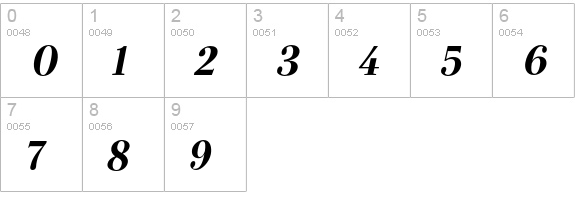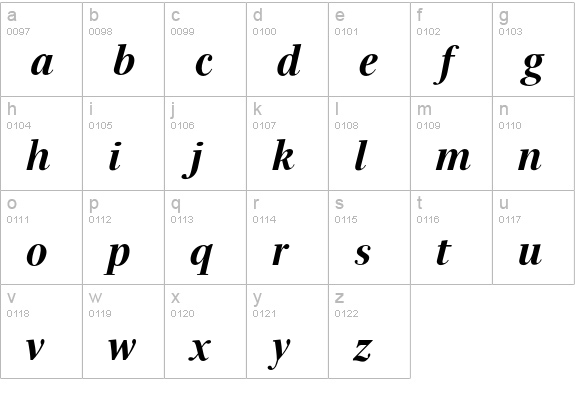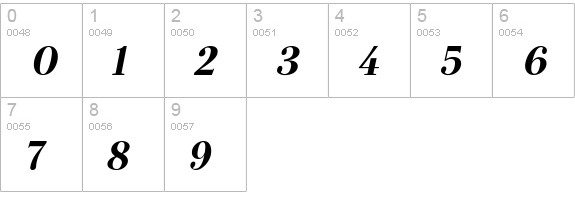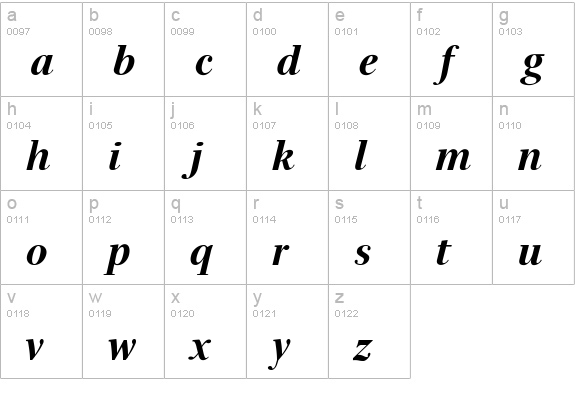
Serif72 Beta Black Italic Font Details
Serif72 Beta Black Italic is a maximum-weight, dramatic, italic variant in the Serif72 typeface family \xE2\x80\x94 well suited to maximum-impact headlines, posters, and packaging.
Serif72 Beta Black Italic font is a bold and dynamic typeface that exudes elegance and sophistication. With its sleek and stylish design, this font is perfect for creating eye-catching headlines, titles, and logos. The italic style adds a touch of flair and drama to any project, making it stand out from the crowd. This font is available for free download at FontsMarket.com, where you can access a wide range of high-quality fonts for your design needs. Whether you're working on a print or digital project, Serif72 Beta Black Italic font will add a touch of class and sophistication to your work. Don't miss out on this fantastic opportunity to elevate your designs with this stunning typeface. Download it now and start creating beautiful typography that truly makes a statement.